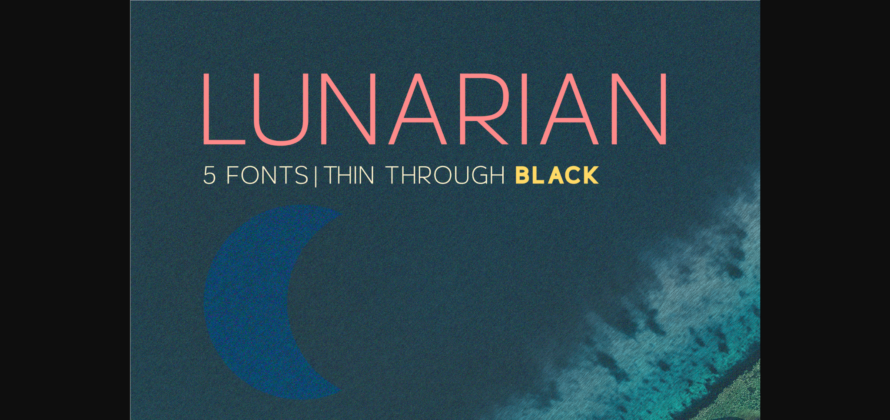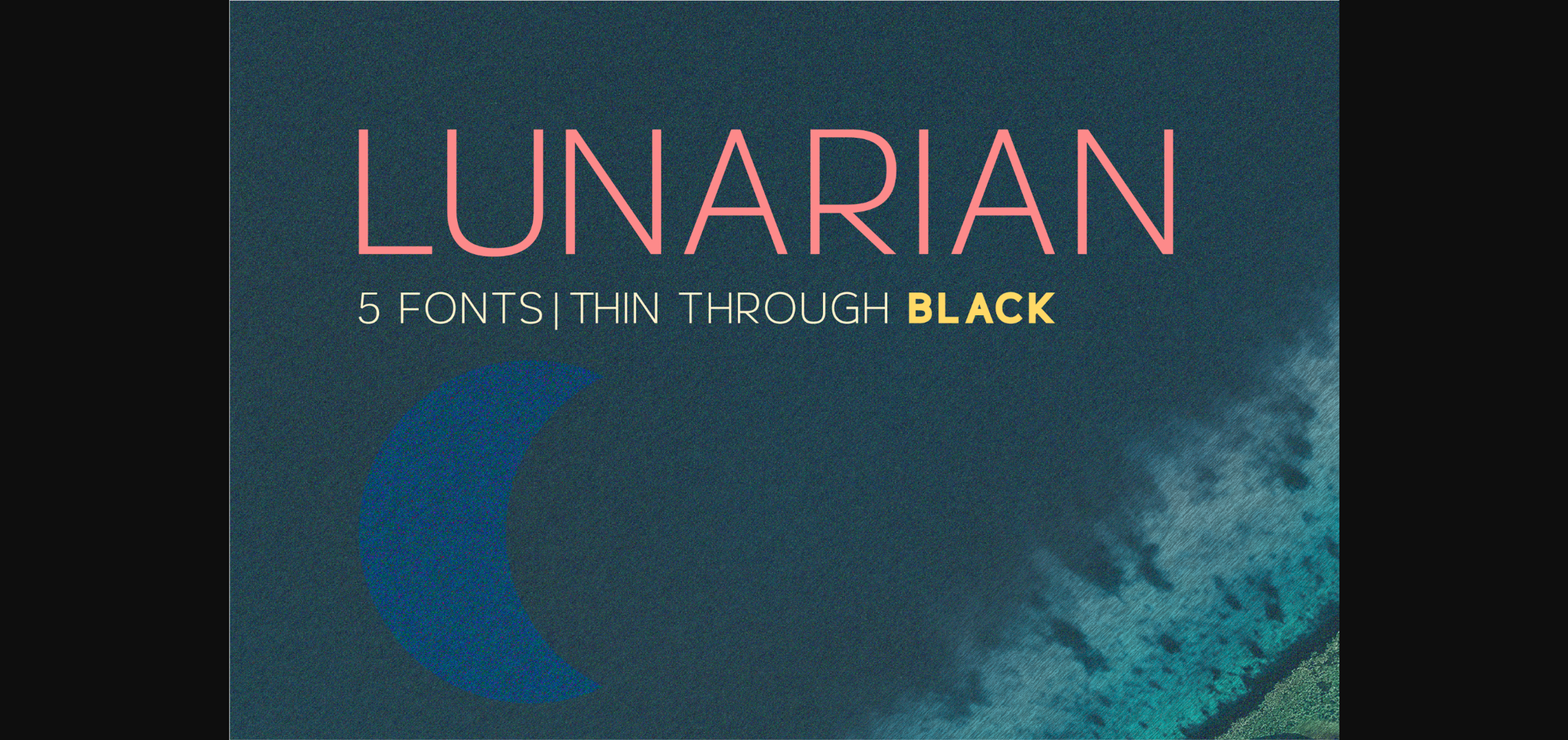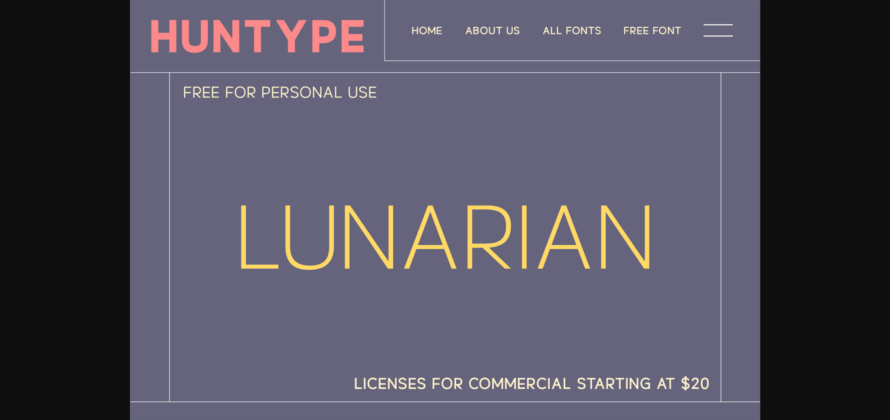
About Lunarian Family Font
Unveiling the Lunarian Font Family — the embodiment of refined sophistication, contemporary flair, and boundless versatility. This masterfully designed font family boasts five unique weights: THIN, LIGHT, REGULAR, BOLD, and BLACK. Lunarian Font Family opens up a world of creative opportunities, making it an exceptional option for designers and content creators alike. From delicate undertones to powerful assertions, this font family is made versatile by its elegant blend of classic and modern aesthetics. The Lunarian Font Family ensures your projects will radiate with a distinguished, unmatched style.